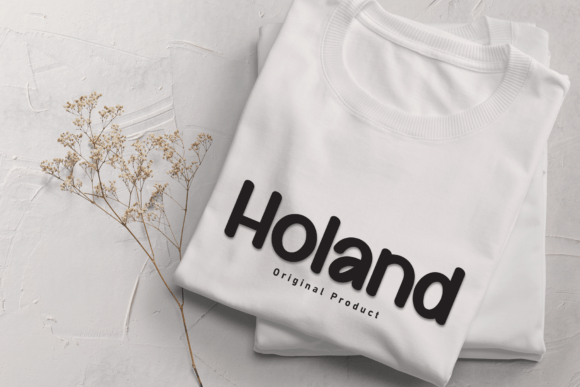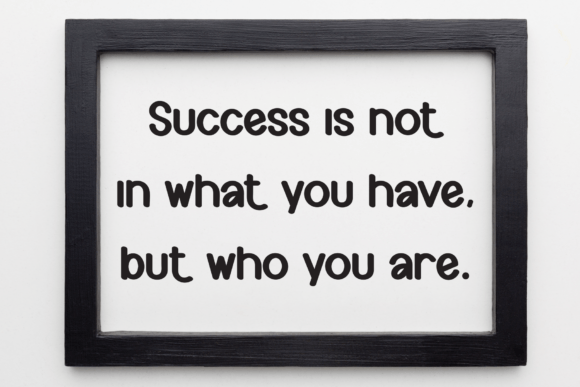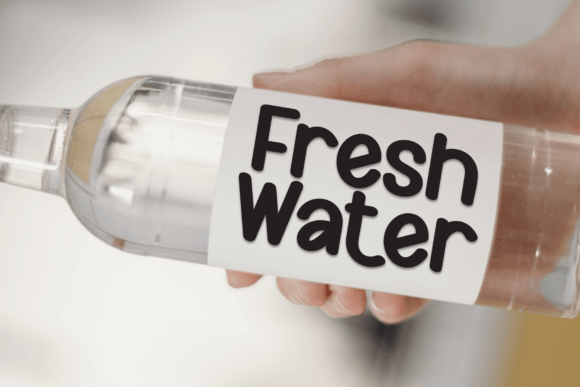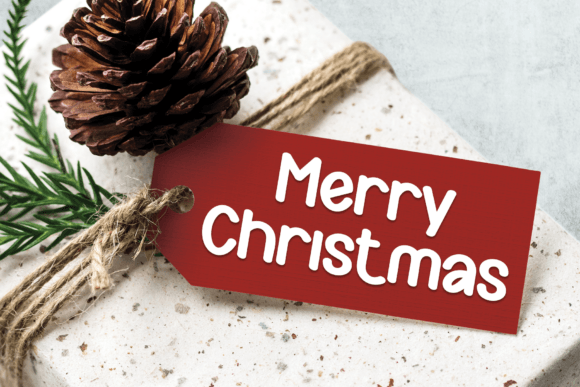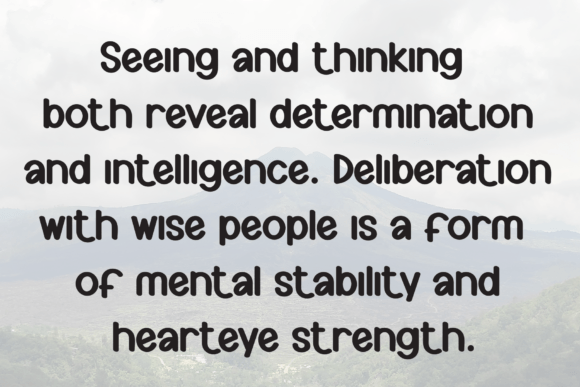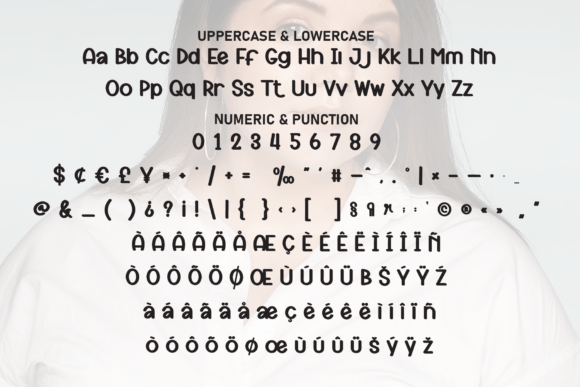
Introducing Chubby Thick Font: The Ultimate Choice for a Fun and Playful Style
Are you tired of using the same old fonts for your creative projects? Look no further! Chubby Thick Font is here to revolutionize the way you add a personal touch to your invitations, posters, and designs. This bold handwritten font is designed to bring a fun and playful style to your text, making it perfect for crafters, designers, and anyone looking to add a little excitement to their work.
The Characteristics of Chubby Thick Font
So, what makes Chubby Thick Font so special? For starters, its thick lines make it incredibly easy to read, even from a distance. This is perfect for posters, flyers, and other designs where you want to grab the attention of your audience. Additionally, the font’s bold and playful style gives your text a cheerful and friendly vibe that’s sure to resonate with your target audience.
Uses for Chubby Thick Font
Chubby Thick Font is incredibly versatile, making it suitable for a wide range of creative projects. Here are just a few ideas to get you started:
- Invitations: Whether you’re planning a birthday party, wedding, or baby shower, Chubby Thick Font is the perfect choice for your invitations. Its playful style sets the tone for a fun and exciting event.
- Posters: Need to create a poster that grabs attention? Chubby Thick Font is the way to go. Its bold lines and thick font make it perfect for headlines, titles, and other eye-catching text.
- Social Media Graphics: Add a personal touch to your social media graphics with Chubby Thick Font. It’s perfect for creating engaging and shareable content that stands out from the crowd.
- Crafting Projects: If you’re a crafter, you’ll love using Chubby Thick Font for your projects. Whether you’re making signs, banners, or other decorative items, this font is sure to add a fun and playful touch.
Benefits of Using Chubby Thick Font
So, why should you choose Chubby Thick Font for your next project? Here are just a few benefits to consider:
- Easy to Read: As mentioned earlier, Chubby Thick Font is incredibly easy to read, even from a distance. This makes it perfect for posters, flyers, and other designs where readability is key.
- Fun and Playful: This font is designed to bring a fun and playful style to your text. Whether you’re creating invitations, posters, or social media graphics, Chubby Thick Font is sure to add a personal touch.
- Versatile: Chubby Thick Font is incredibly versatile, making it suitable for a wide range of creative projects. Whether you’re a designer, crafter, or simply someone who loves to create, this font is sure to become a favorite.
Tips and Tricks for Using Chubby Thick Font
Here are a few tips and tricks to help you get the most out of Chubby Thick Font:
- Experiment with Colors: Chubby Thick Font looks great in a variety of colors. Experiment with different colors to find the one that works best for your design.
- Play with Size: Don’t be afraid to play with the size of your text. Chubby Thick Font looks great in large and small sizes.
- Combine with Other Fonts: Chubby Thick Font pairs well with a variety of other fonts. Experiment with combining it with other fonts to create a unique look.
In conclusion, Chubby Thick Font is a bold handwritten font that is perfect for adding a fun and playful style to your creative projects. Its thick lines make it easy to read, and its cheerful and friendly vibe is sure to resonate with your target audience. Whether you’re a designer, crafter, or simply someone who loves to create, Chubby Thick Font is a great choice for invitations, posters, social media graphics, and more.